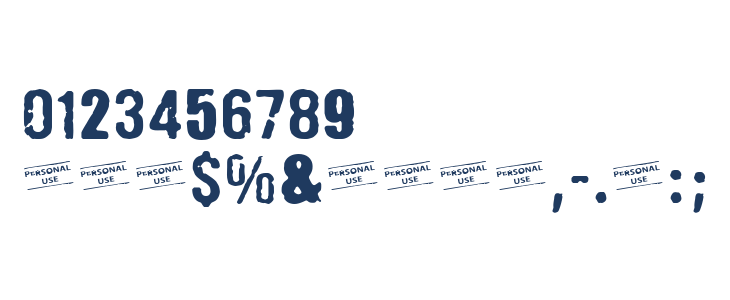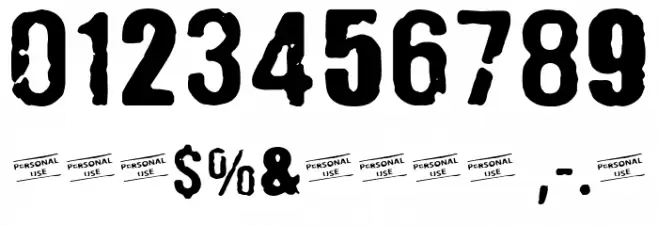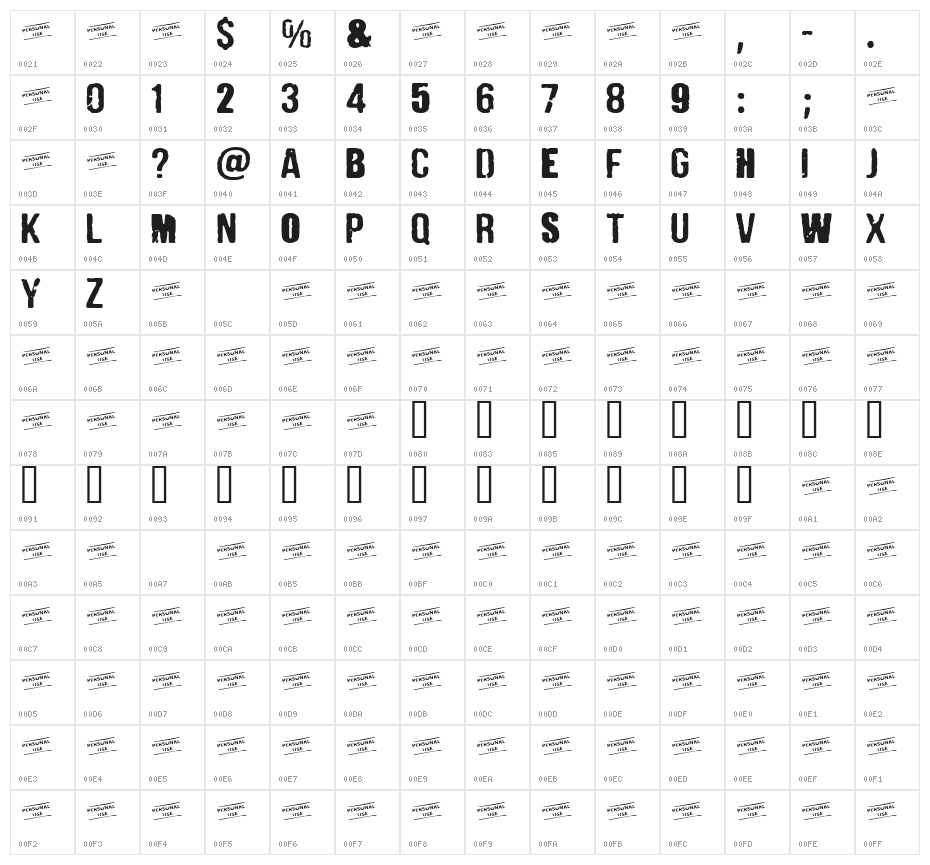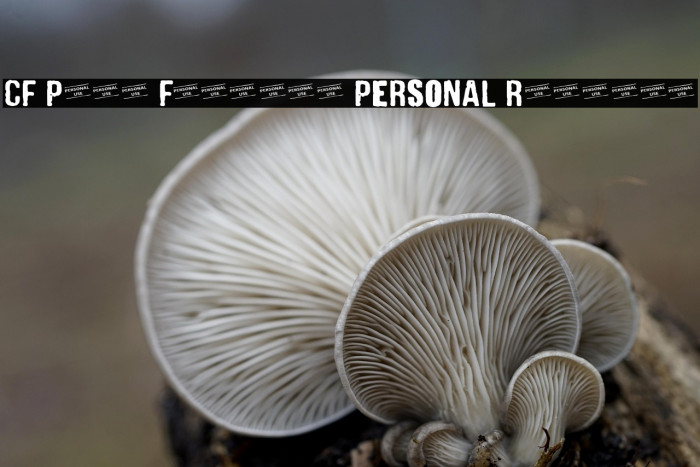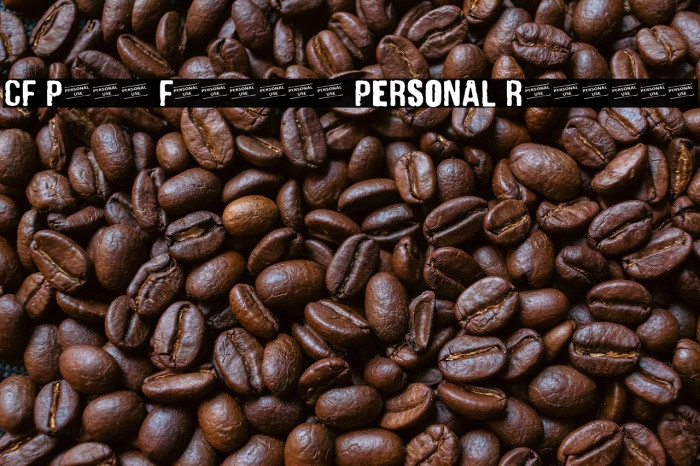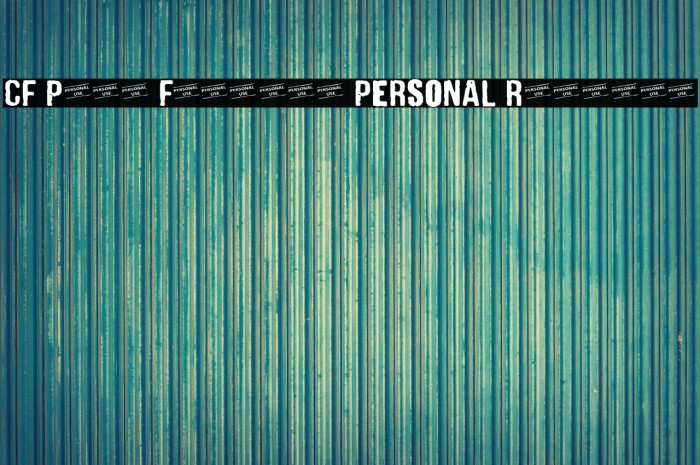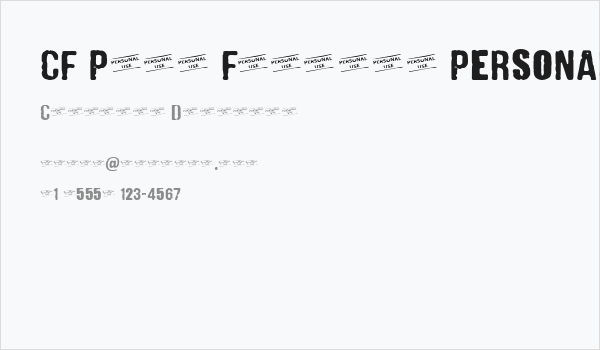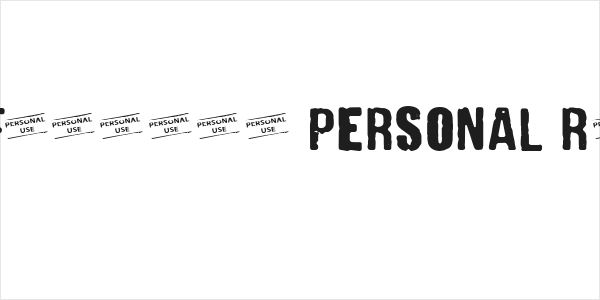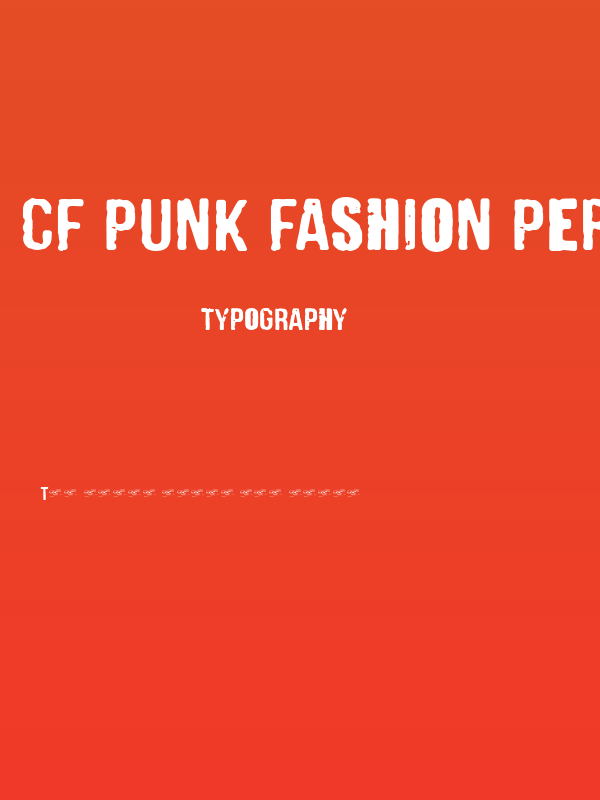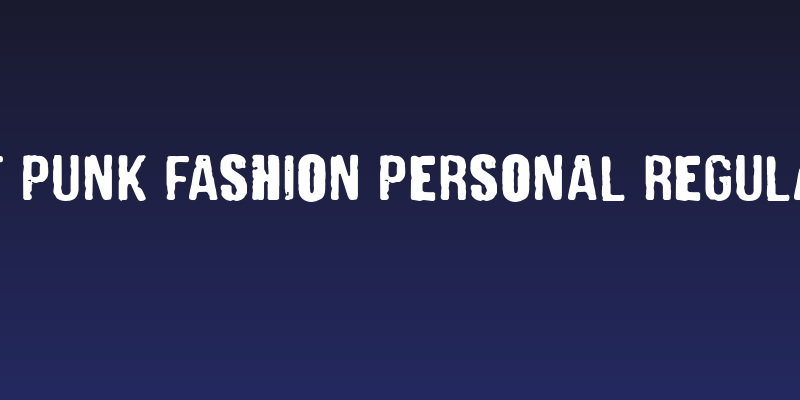
CF Punk Fashion PERSONAL Regular Font
CF Punk Fashion PERSONAL Regular Description
This font exhibits a bold, distressed style with a grunge aesthetic, reminiscent of punk fashion. The uppercase letters are robust and have a rough, textured appearance, giving them a worn and edgy look. The numbers and special characters maintain this rugged style, ensuring consistency across all glyphs. The font's design is perfect for projects that require a rebellious or alternative vibe, making it ideal for music album covers, posters, and edgy branding materials.
| Overall Style | Grunge, Punk |
| Proposed Projects | Ideal for music album covers, punk-themed posters, edgy branding, and alternative fashion designs. |